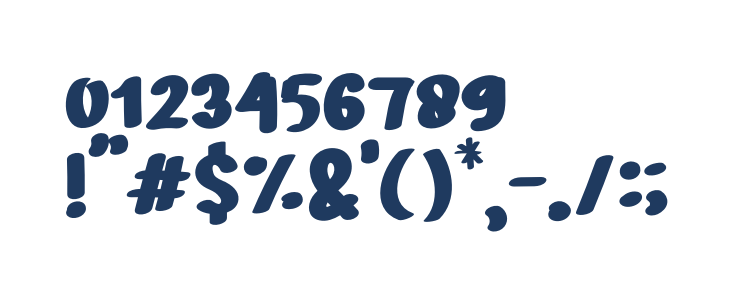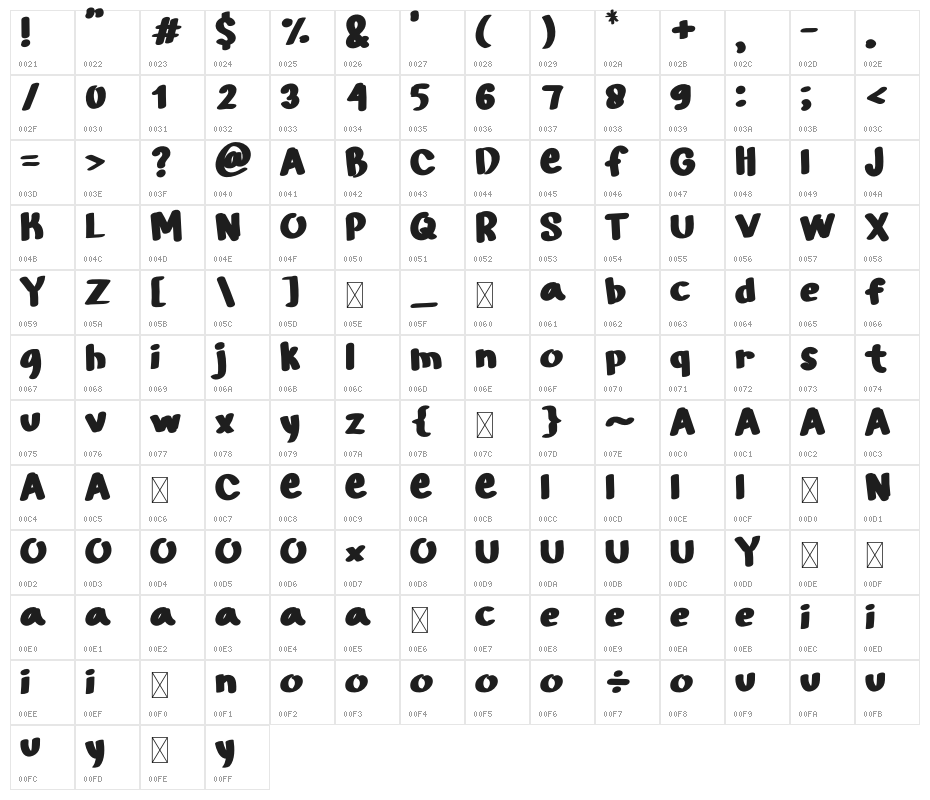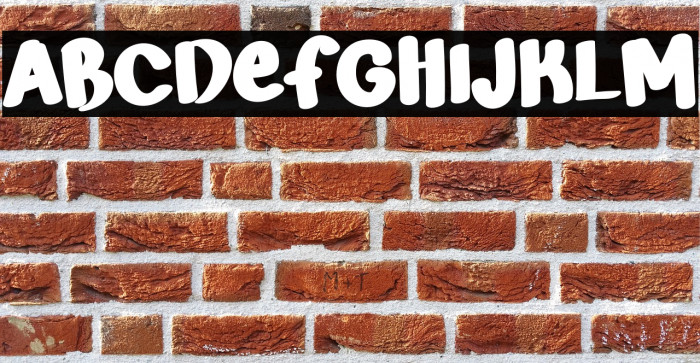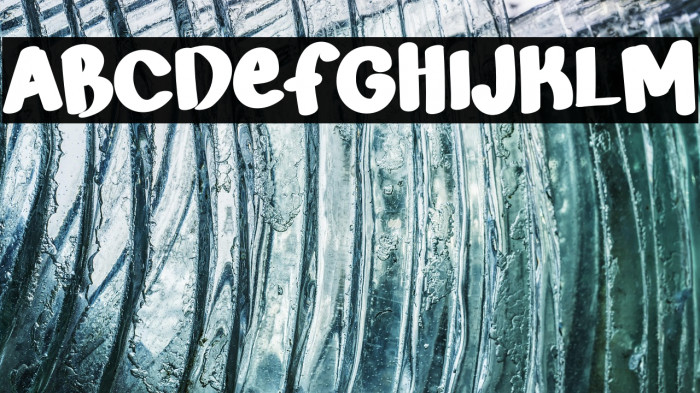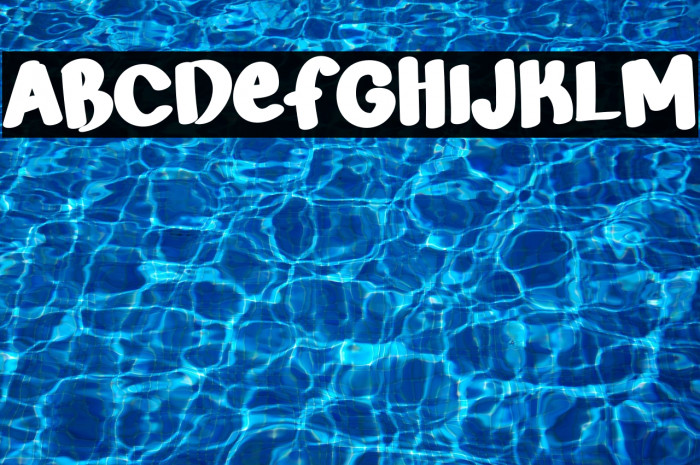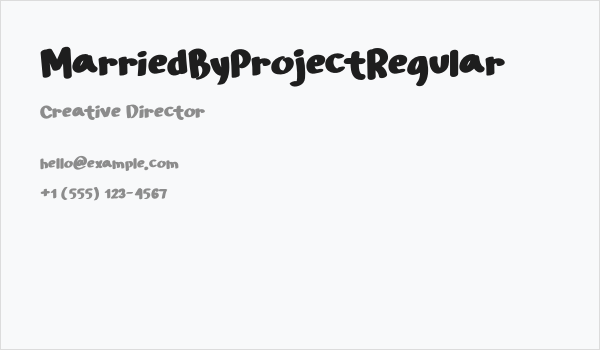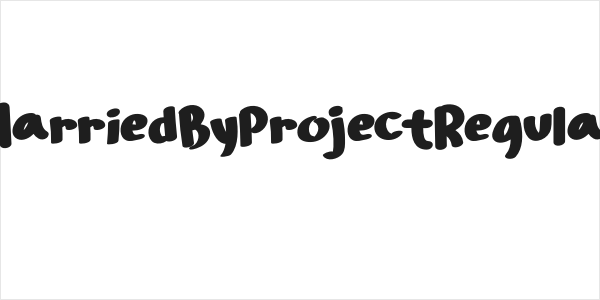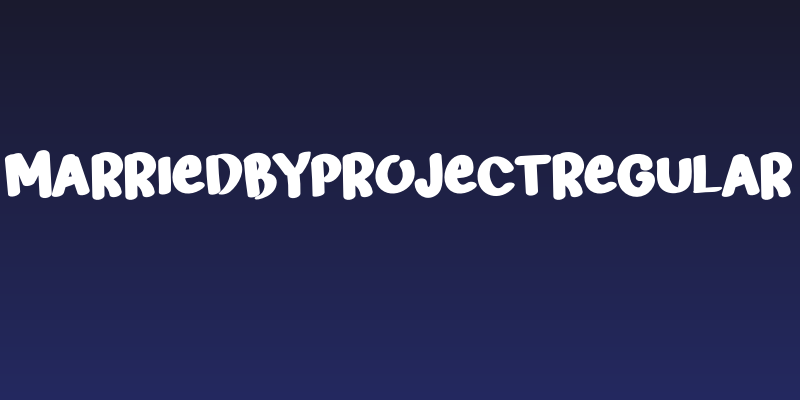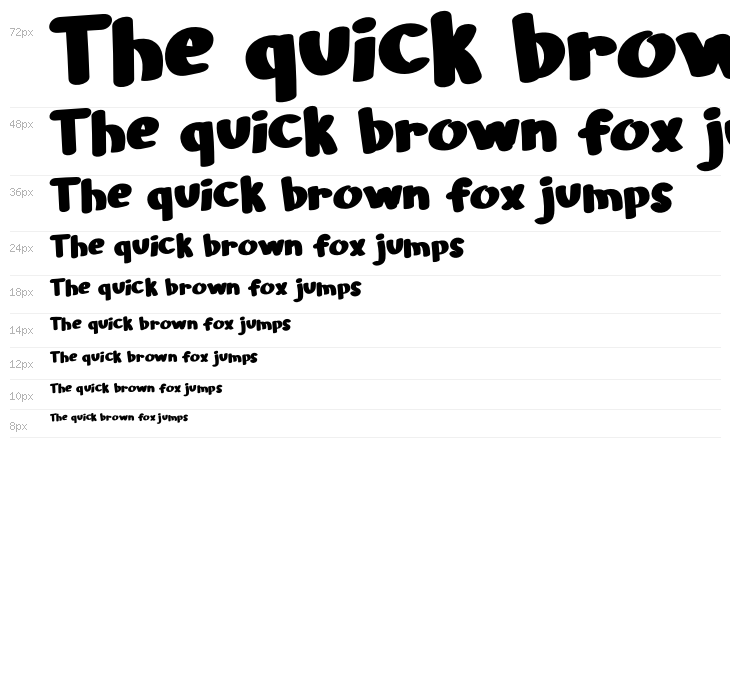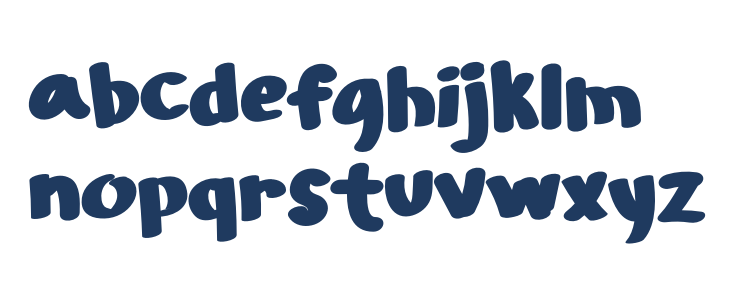
MarriedByProjectRegular Font
MarriedByProjectRegular Description
This font features a playful and bold style with rounded edges and a hand-drawn appearance. The characters are thick and have a consistent weight, giving them a strong presence on the page. The uppercase and lowercase letters maintain a cohesive look, with slight variations that add to the font's charm. The numbers and special characters follow the same design principles, ensuring uniformity across all glyphs. This font's whimsical nature makes it suitable for projects that require a fun and informal touch.